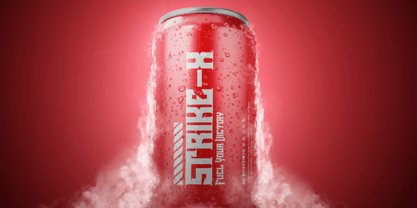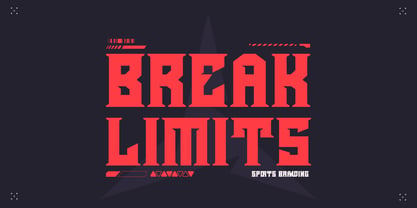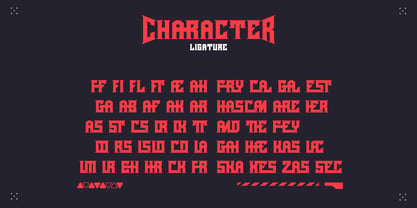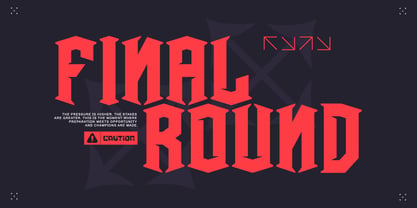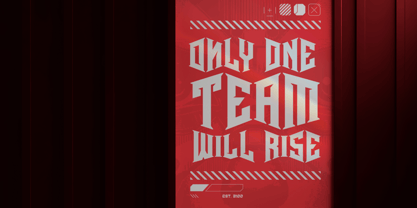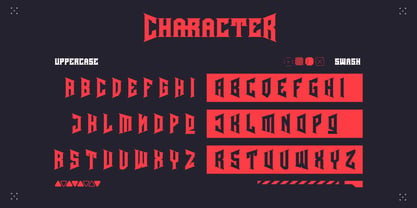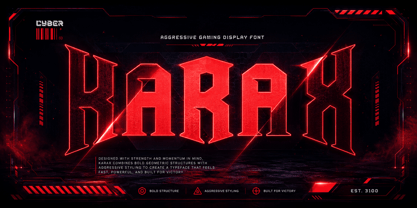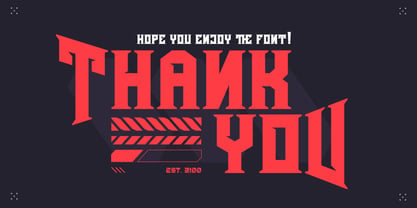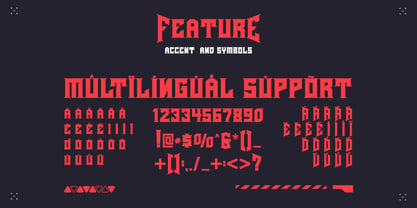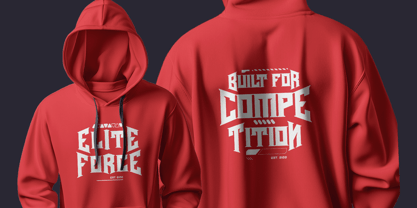
Harax
von Letterara
Die Schriftfamilie Harax wurde von Thomas Aradea entworfen und von Letterara veröffentlicht. Harax enthält 2 Stile und Familienpaketoptionen. Mehr über diese Familie
Harax is a bold and aggressive gaming display font designed to bring power, speed, and high-impact energy to your creative projects. Built with sharp geometric letterforms, strong proportions, and distinctive angular details, Harax delivers a competitive visual style that instantly commands attention.
Inspired by esports, gaming culture, cyber technology, extreme sports, streetwear, and futuristic branding, this powerful display typeface is perfect for projects that need a strong, modern, and fearless identity.